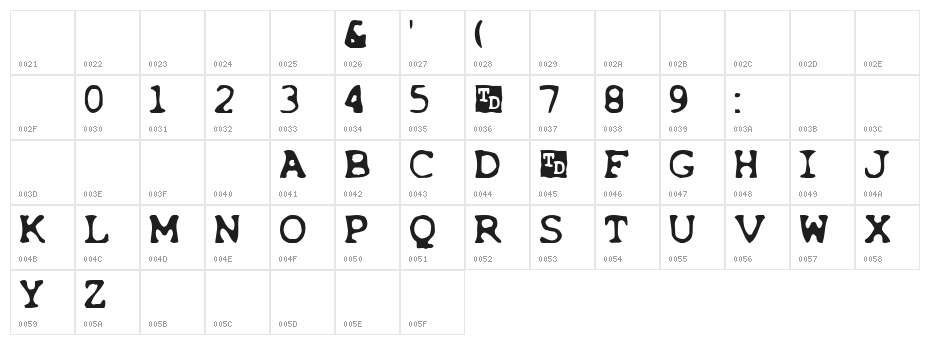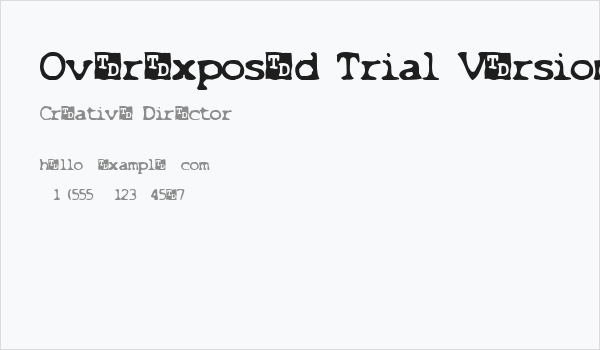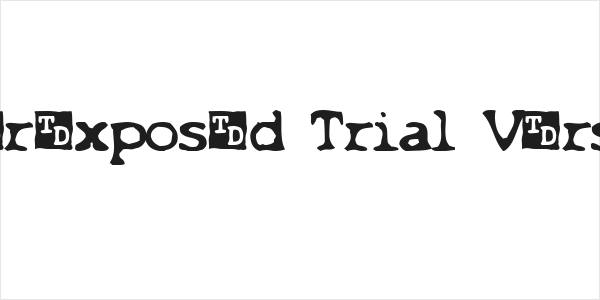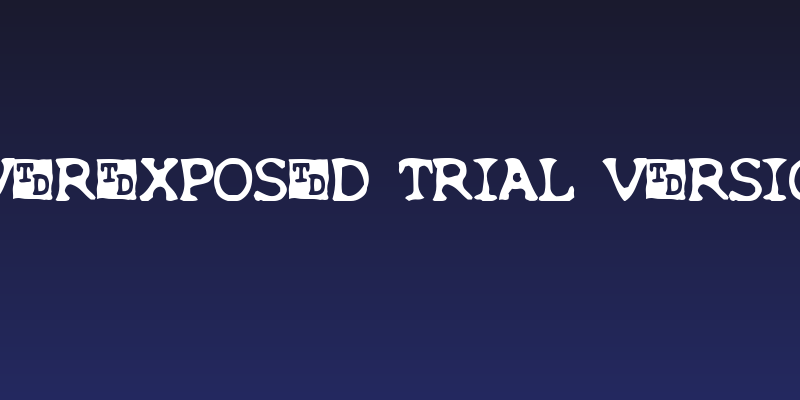
Overexposed Trial Version Font
Overexposed Trial Version Description
This font features a bold and playful design with a hand-drawn aesthetic. The characters have a whimsical, uneven quality, giving them a unique and artistic appearance. The uppercase and lowercase letters maintain a consistent style, with exaggerated curves and varying stroke widths. The numbers and special characters follow the same playful theme, making the font suitable for creative and informal projects. The overall look is reminiscent of a handcrafted or artistic style, perfect for adding a touch of personality to any design.
| Overall Style | Artistic, Playful |
| Proposed Projects | Ideal for children's books, creative posters, playful branding, and artistic invitations. |